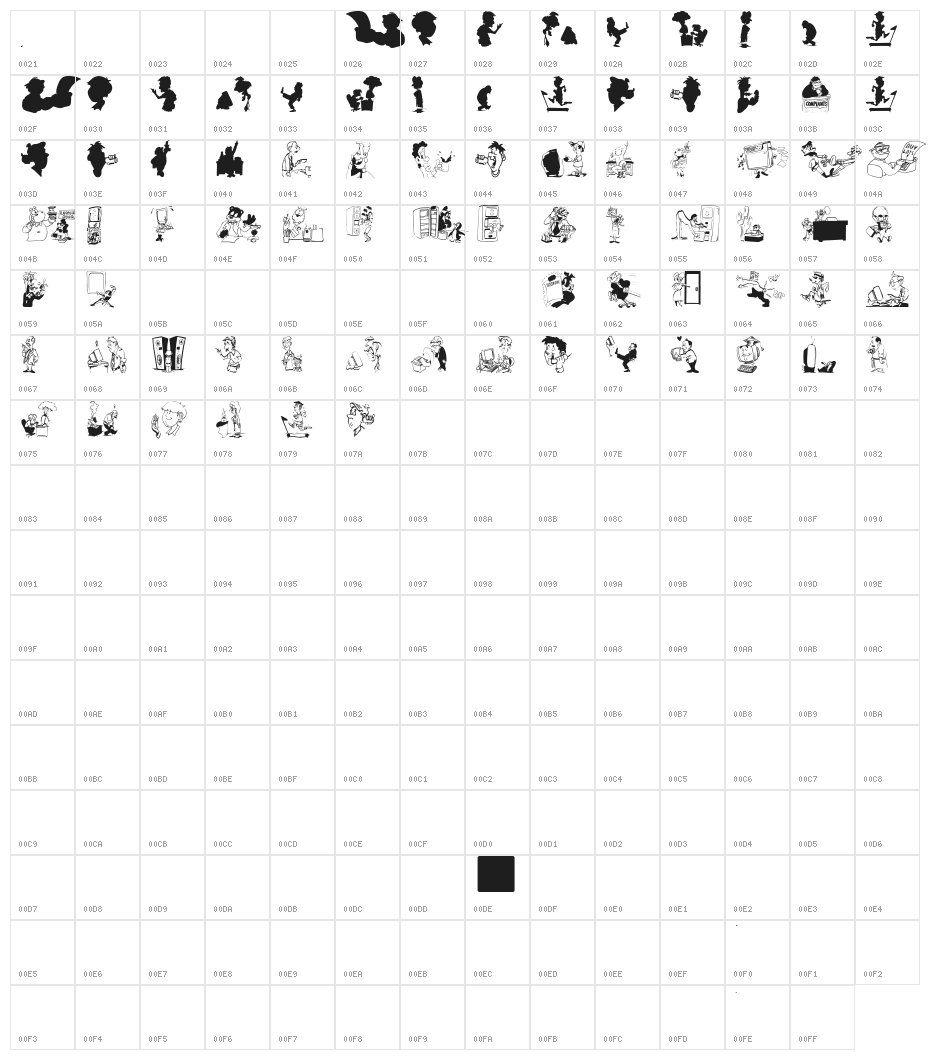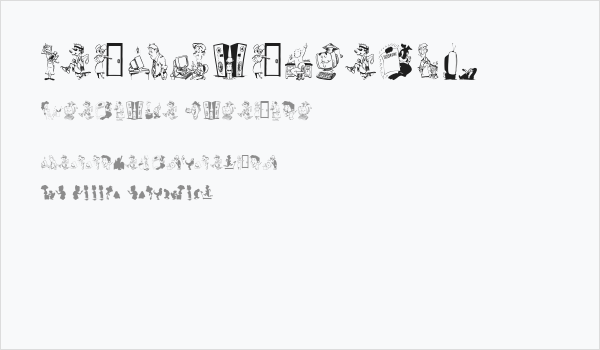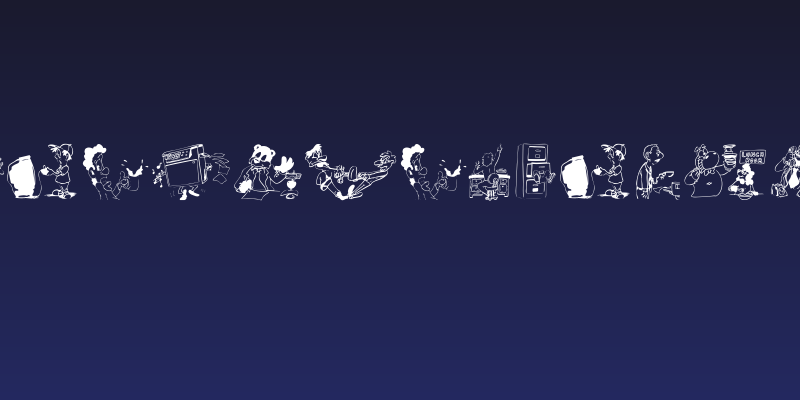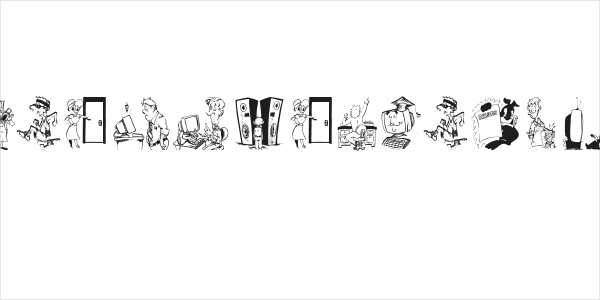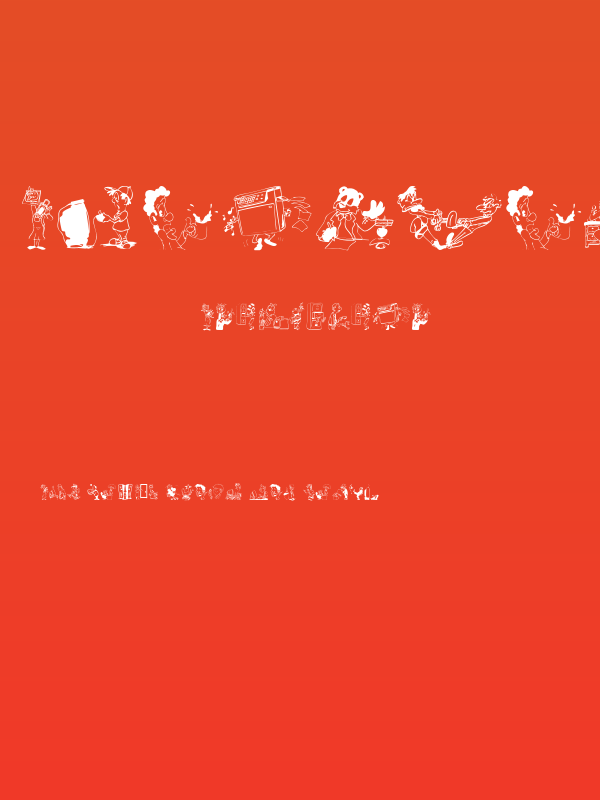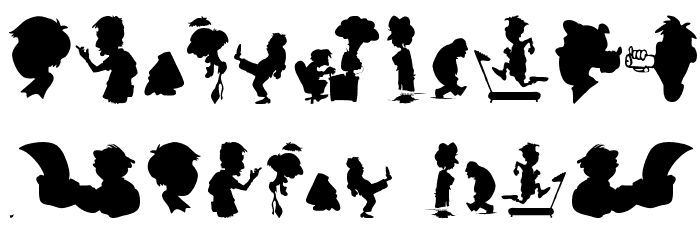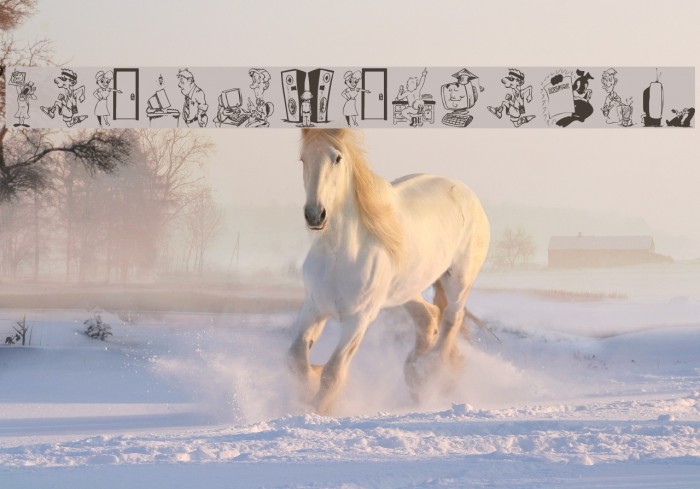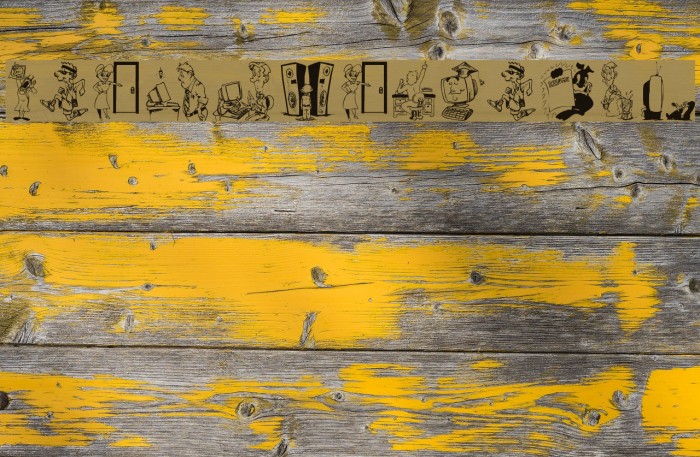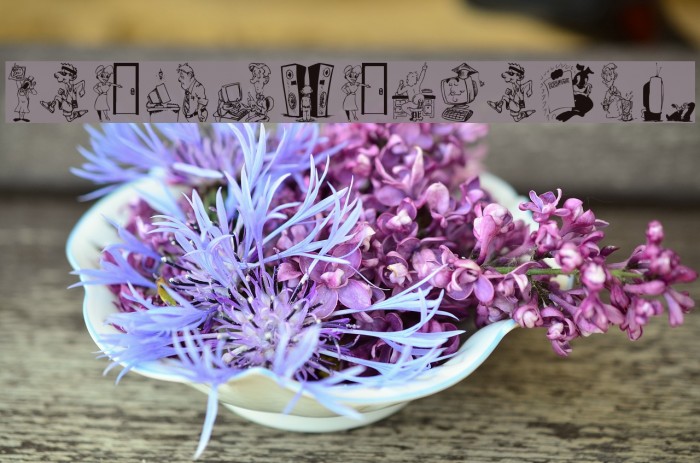
TechnicFreaks Font
TechnicFreaks Description
A playful and highly illustrative font composed of cartoon-style characters, each letter and symbol represented by a unique, detailed drawing of a person or scene related to technology or office life. The glyphs are whimsical, with exaggerated features and dynamic poses, making each character distinct and lively.
| Overall Style | Decorative, Playful, Cartoonish |
| Use Case | Headlines, Posters, Logos, Themed graphics |
| Proposed Projects | Children’s books, tech event posters, playful branding, comic strips, educational materials. |